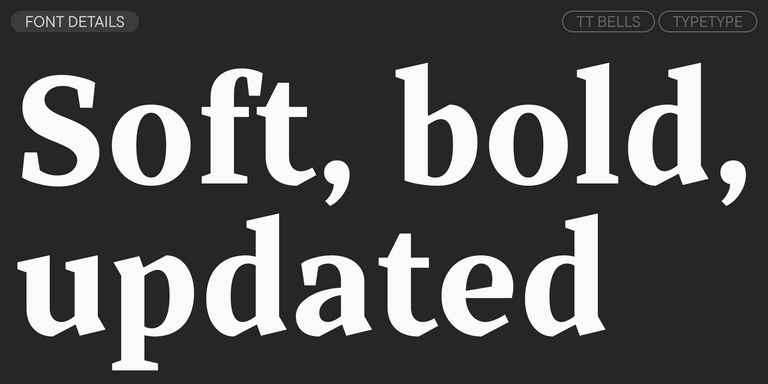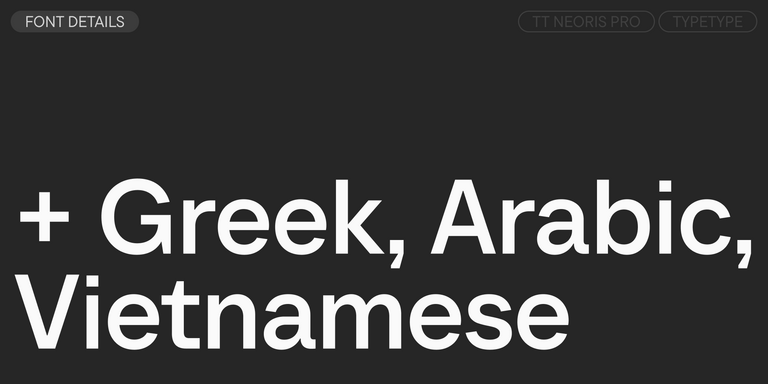
The Tsonga fonts selection
Choose a suitable font that supports the Tsonga language. We have a vast collection of font families to meet any creative needs, whether you are working on extensive text blocks, crafting headings for websites or printed publications, printing on various materials, including fabric, or designing signs and posters.
Each of the fonts includes the Tsonga alphabet. A wide range of characters, currency and punctuation symbols, font styles, and OpenType features will allow you to apply the same Tsonga fonts to different projects. Characters of the extended Latin writing system that include diacritical marks will increase the options of using the font for any country.
Each font demonstrates flawless technical quality. Many fonts in our collection include a variable font style that can be used to create a unique style for your project.
TT Glips is an experimental monospaced sans serif with a handmade feel. At small sizes it looks technological, but as the size grows, rounded details and soft forms come through.
TT Polihaus is an experimental sans serif that, at first glance, looks ordinary, but then breaks apart, transforming into a stencil pattern.
TT Odellia is an old-style serif with a modern design, inspired by Venetian typefaces and classical music.
TT Nooks Serif is a display modern serif with a slight touch of egocentricity. It has a sharp and firm, yet elegant and stately character.
TT Nooks Script features a unique design that has no direct analogs.
TT Qurdisma is a narrow and dense decorative font reminiscent of a whimsical plant. The winding, smooth contours give rise to a botanical ornament.
TT Dott is an experimental pixel grotesque where a circle is used as the base for the pixel. It is a fluid and unusual display font, evoking associations with embroidery and techno parties all at once.
TT Bells combines the elegant softness of Antiqua with a complex and daring temper reflected in straight stroke terminals and arrowheaded serifs. The typeface is based on the broad nib, which creates these hallmark terminals and serifs.
TT Severs is a geometric sans serif with emphasized elements of internal brackets. The main visual feature of TT Severs is the unusual form of internal ovals.
TT Jenevers is a modern serif with a Dutch flavor. The font family features the characteristic details peculiar to Dutch serifs—these are the asymmetrical shape of serifs and an irregular slant of ovals.
TT Regins is a Scottish modern serif. Striking contrast and sharp triangular serifs give this font a stern and commanding character, while refined forms, enlarged lowercase letters, and slightly condensed, static proportions add grace to its design.